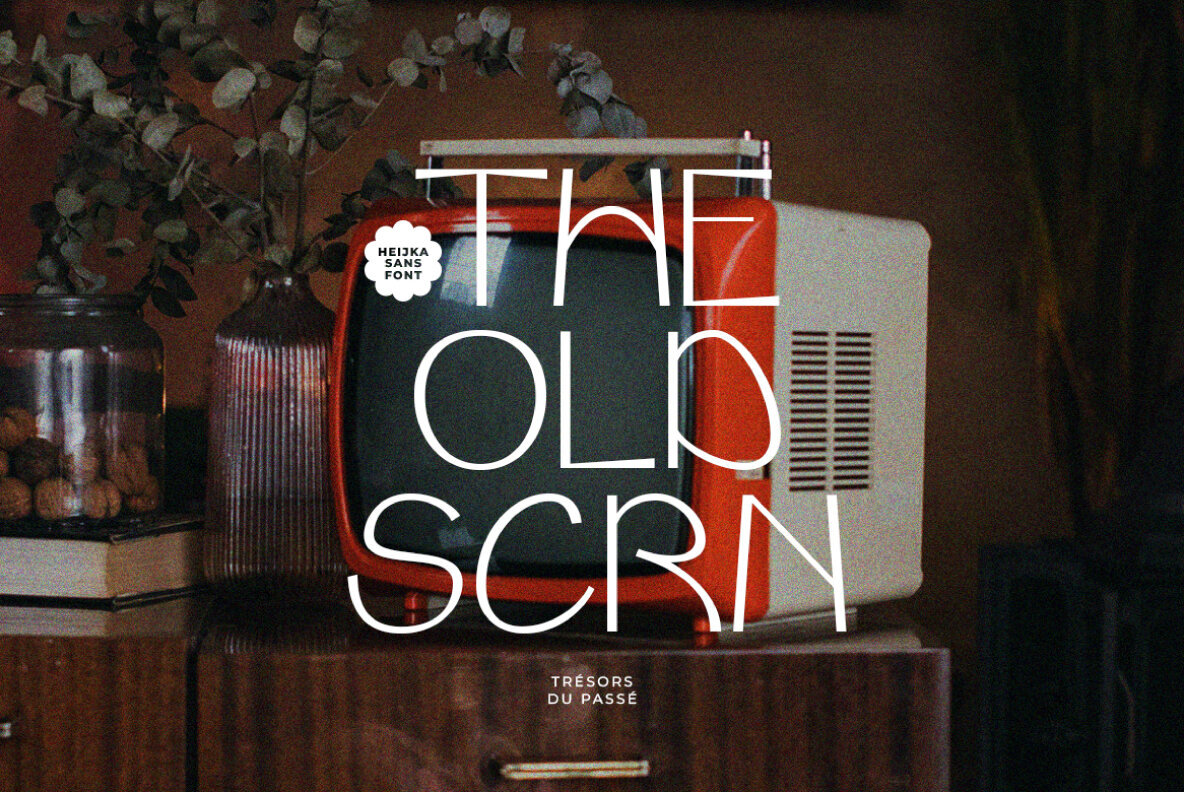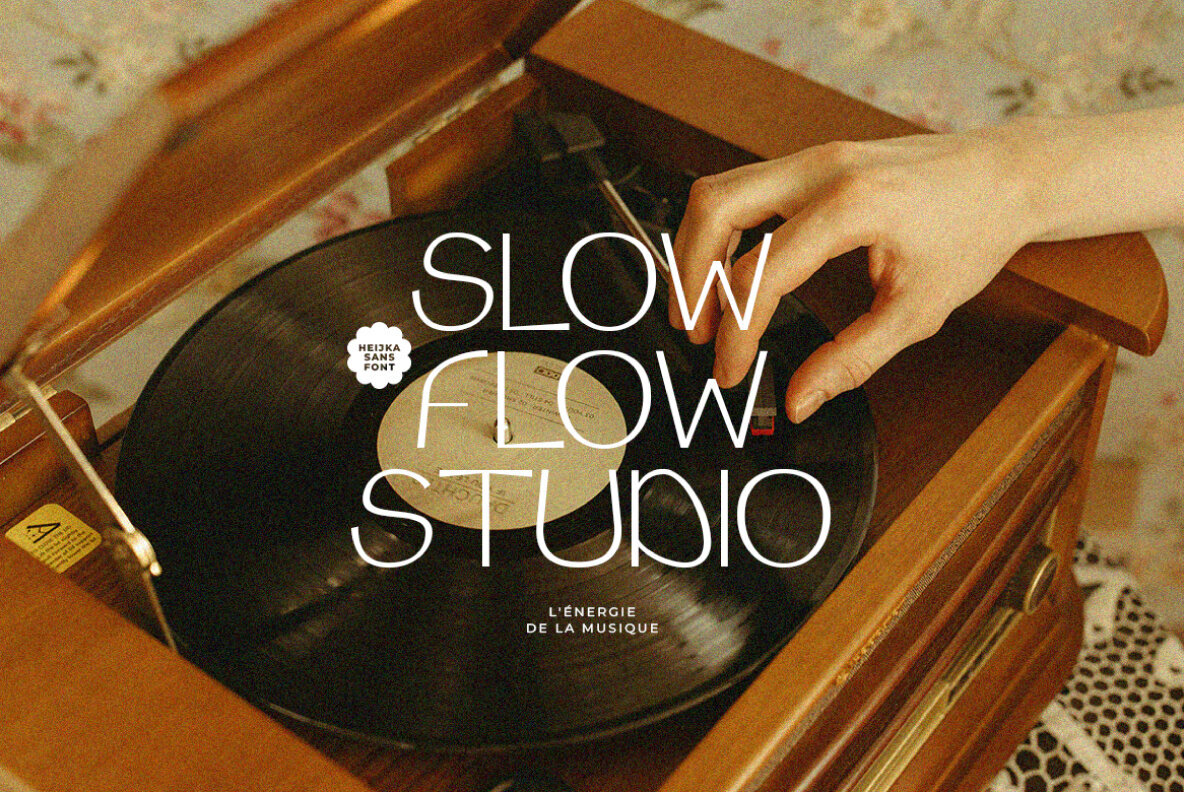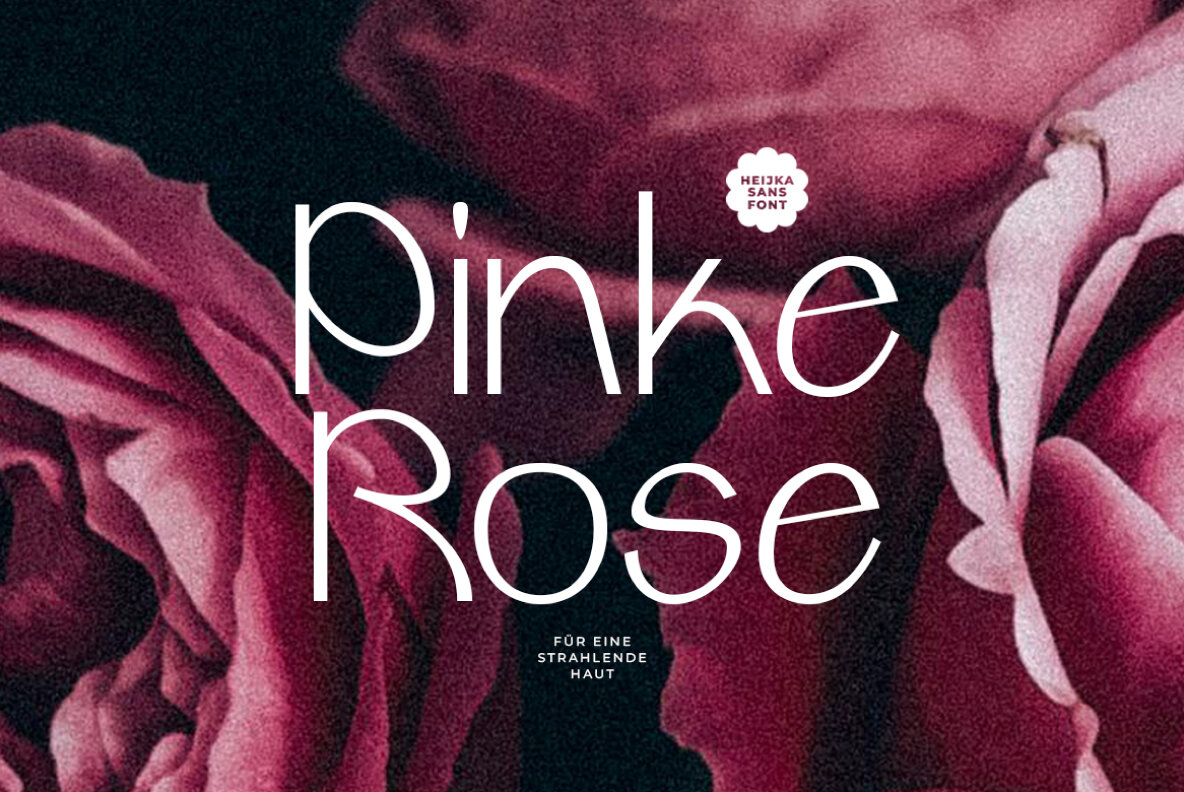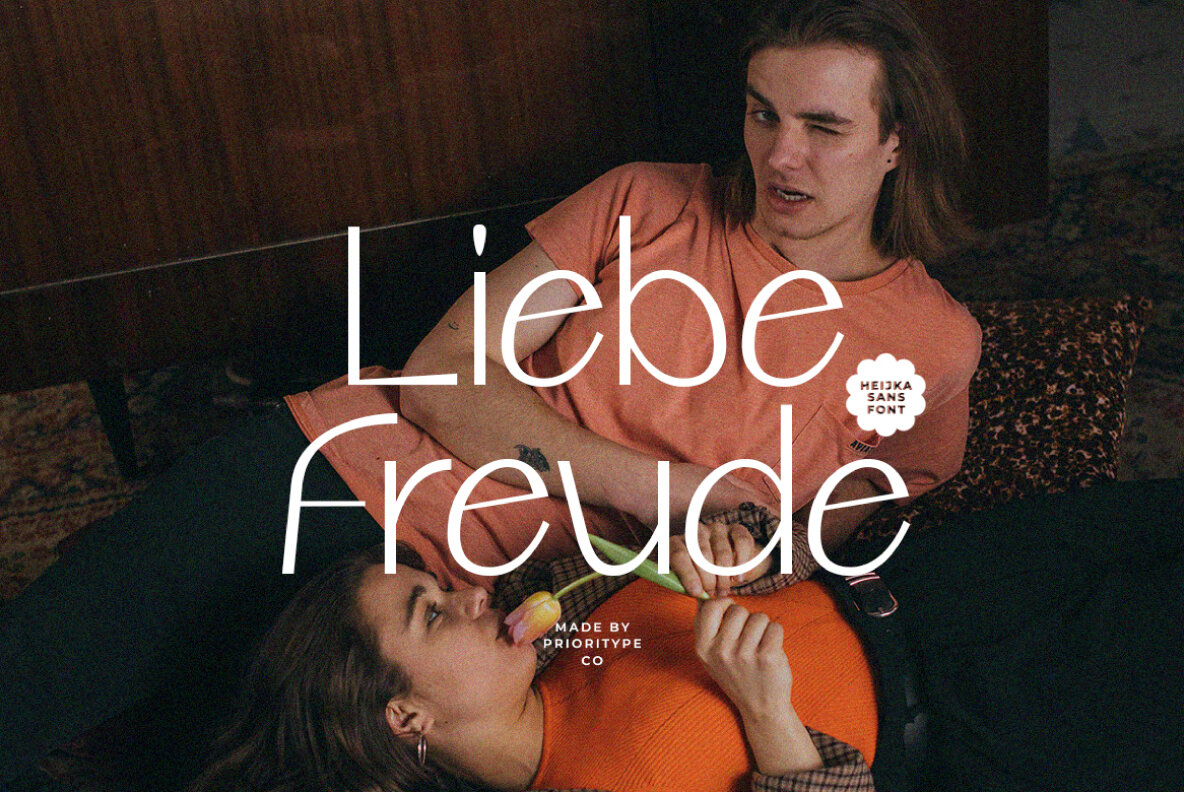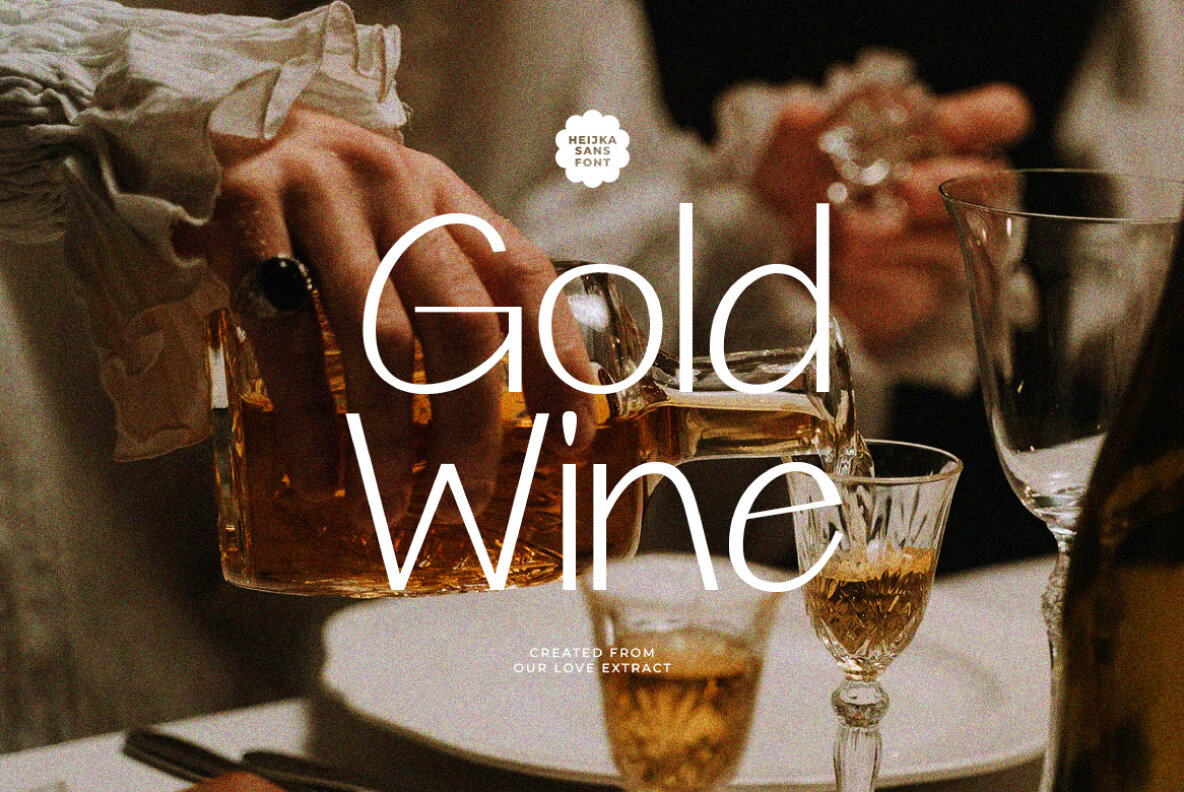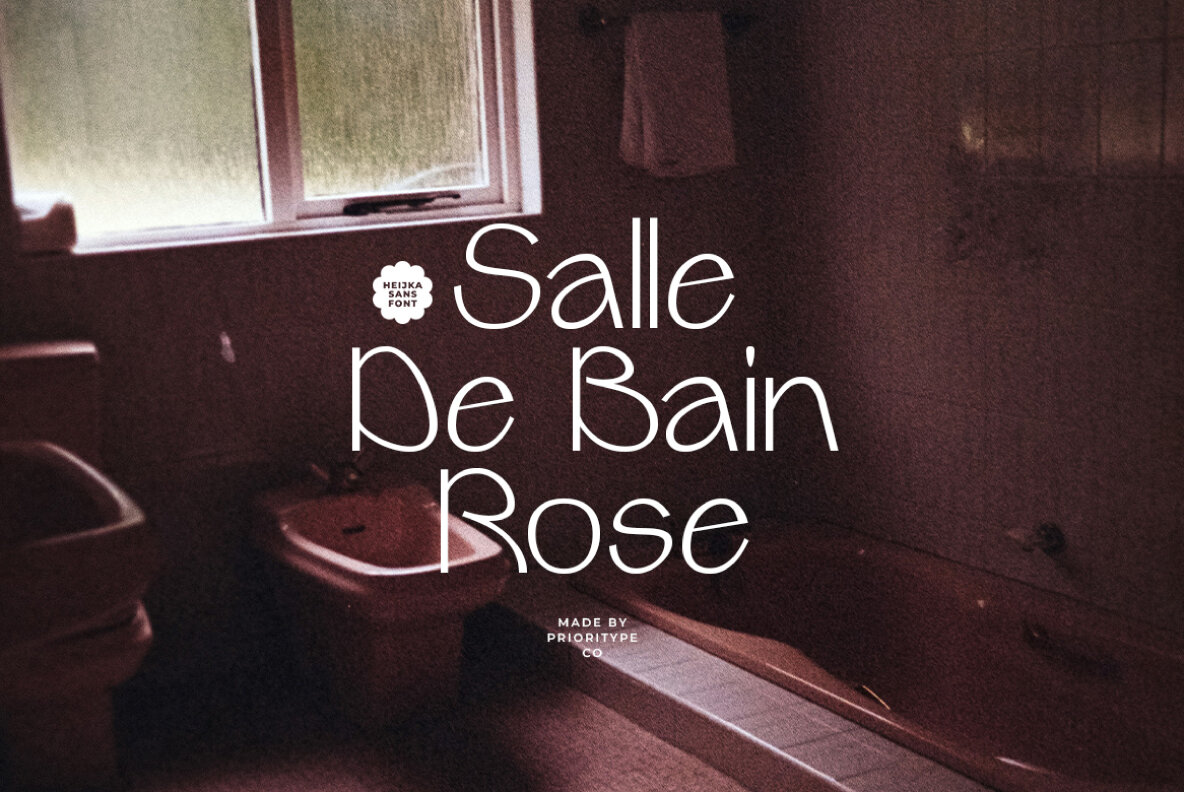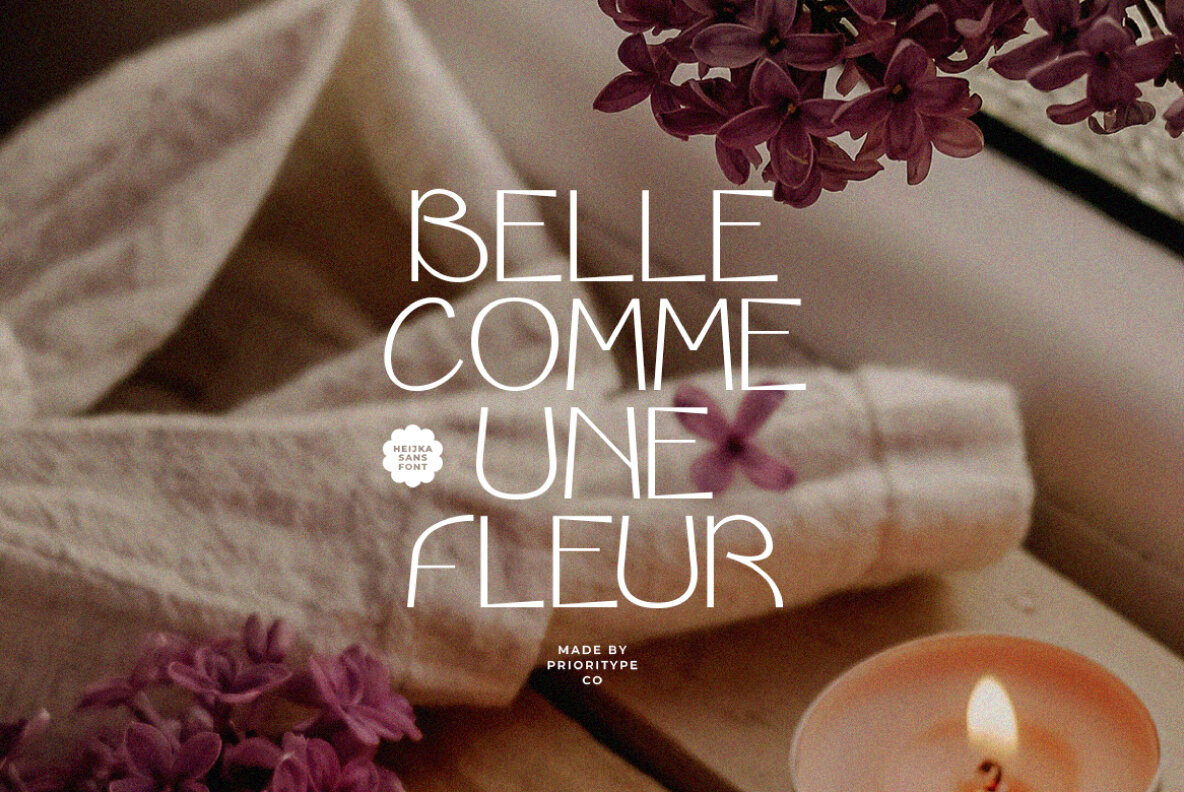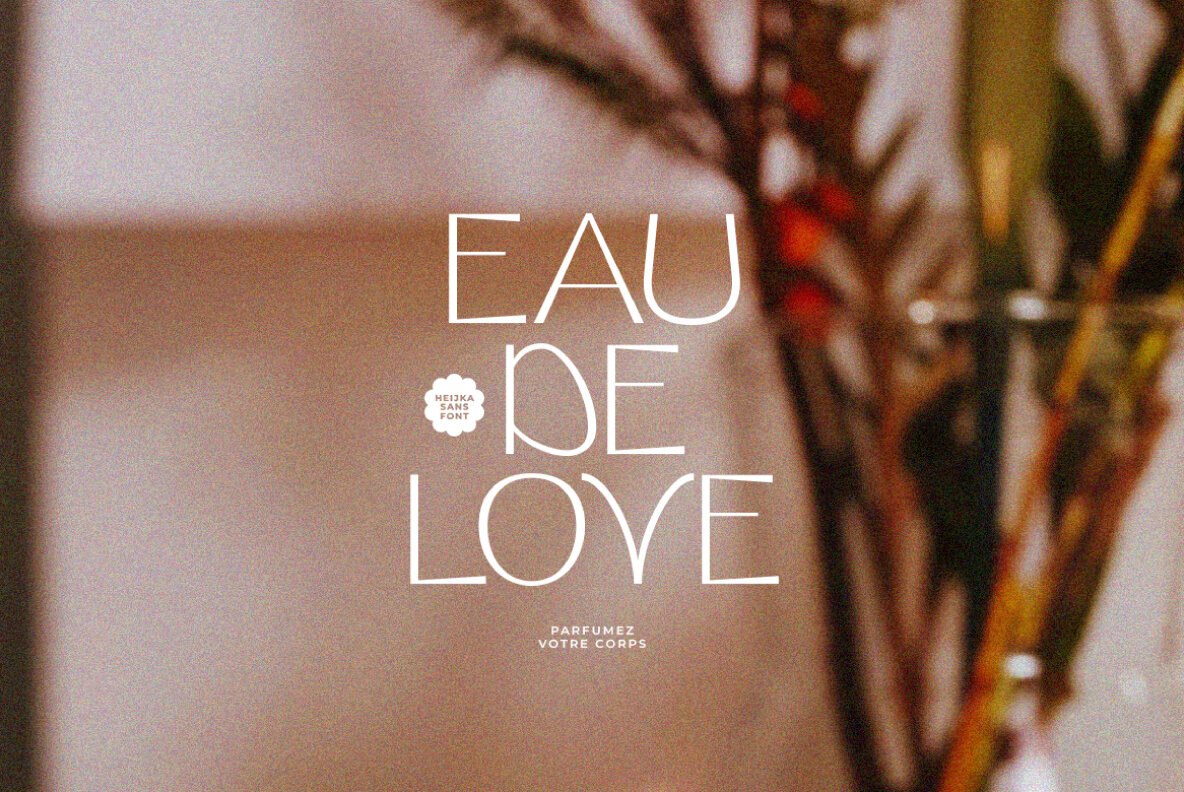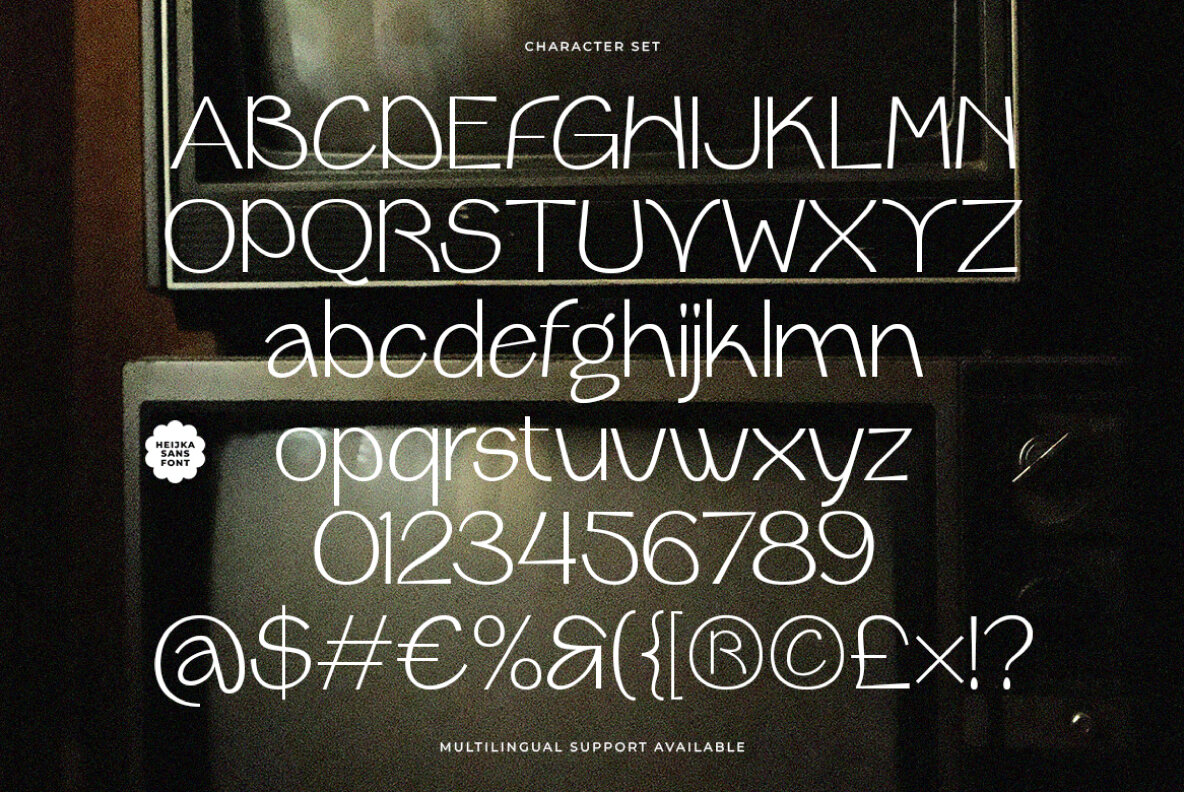
Heijka Sans Font
Heijka Sans
Heijka Sans is a modern, expressive display sans serif font thoughtfully curated by Prioritype Co. It embodies a unique blend of modern style, with a nod to classic retro elements. Its versatility has seen it become a favorite for branding projects, logo creation, and striking poster designs. This modern retro font is comprehensive, encompassing Uppercase, Lowercase, Numerals, Punctuation, and accommodating Multilingual specificities. Here lies a font that is as versatile in its application as it is distinct in its presentation. Embrace the aesthetic brilliance and functional flexibility of Heijka Sans - the modern retro font that's expressive, diverse, and forward-thinking.Heijka Sans - The Modern Retro Typeface Adored by Graphic Designers and Marketing Agencies